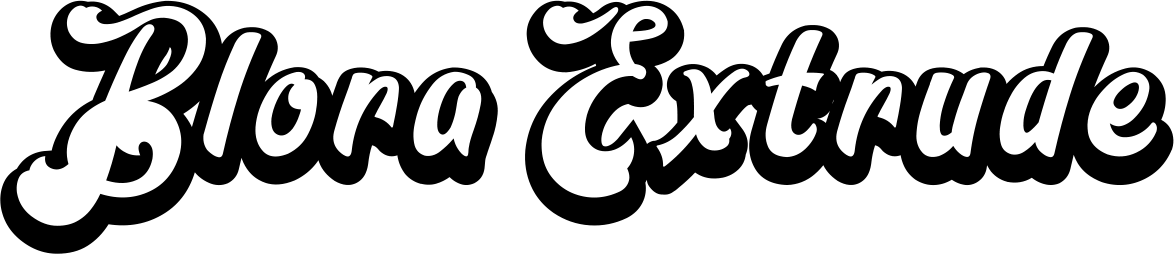
Blora Extrude Font
If you want to give a perfect look to your text layouts, you should try this old-school font right now. Fortunately, Blora Extrude is available in 2 distinct versions, pick the one you like or use them together. It’s usable for snack packaging, apparel products, logos, and so on. To get more outline fonts, just browse our vast website and enjoy the freebies.
Introduce, this is our newest product, we give it a name
This product is Blora Font.
Blora is crafted with love. It’s designed to work perfectly in multiple designs like weddings invitations, greeting cards, and much more!
• Blora Regular & Bold
• Blora Extrude & Based